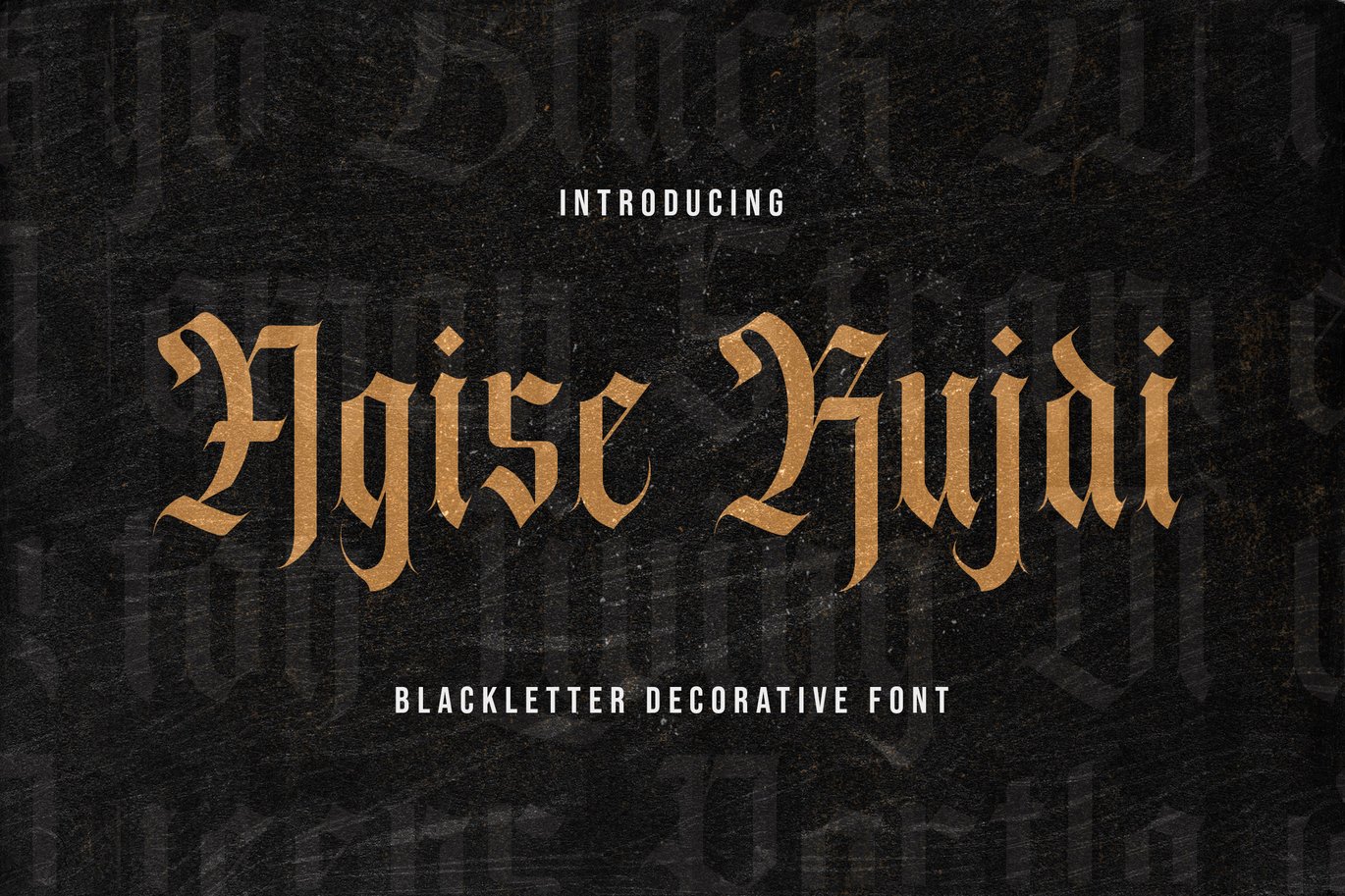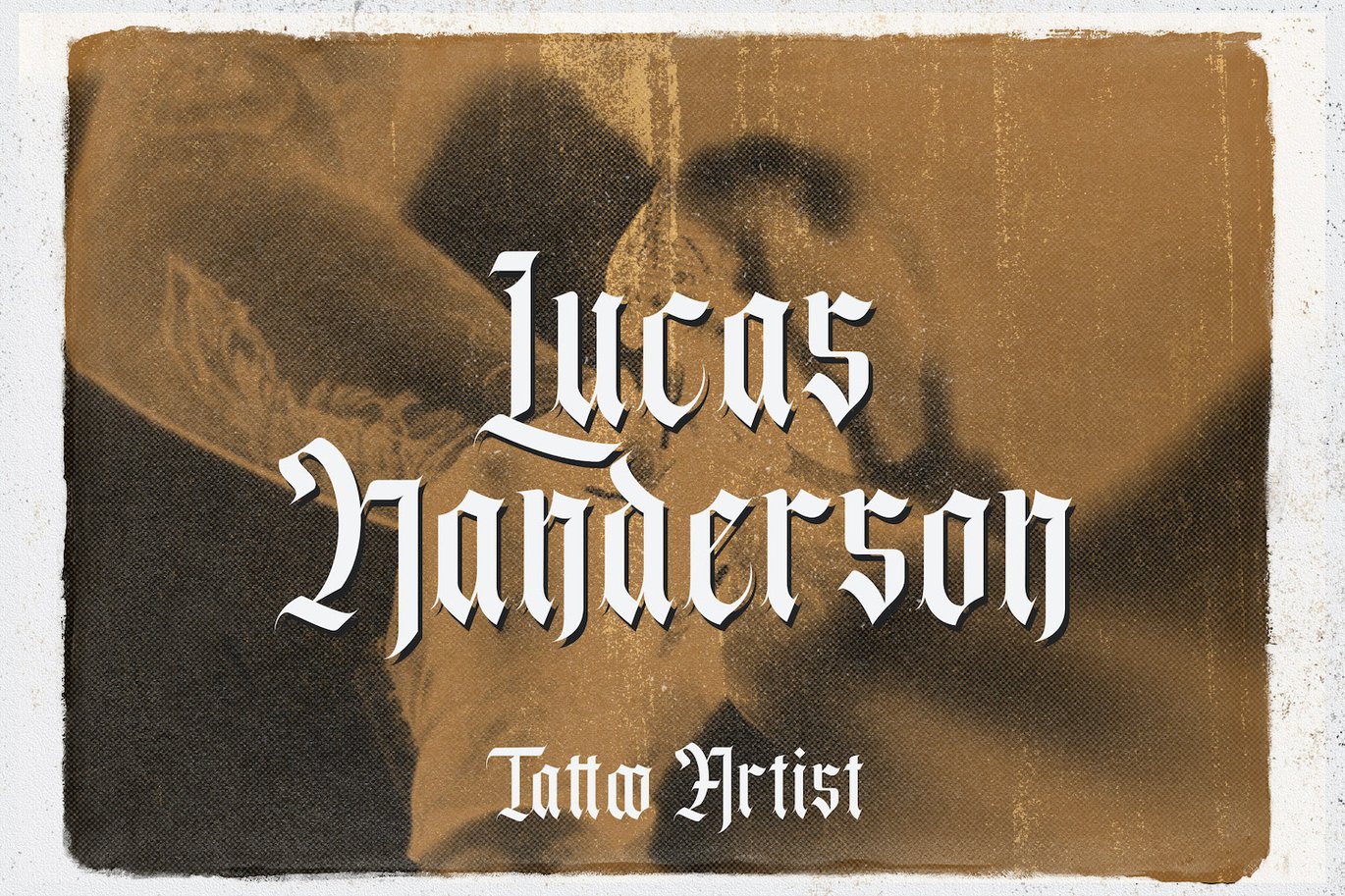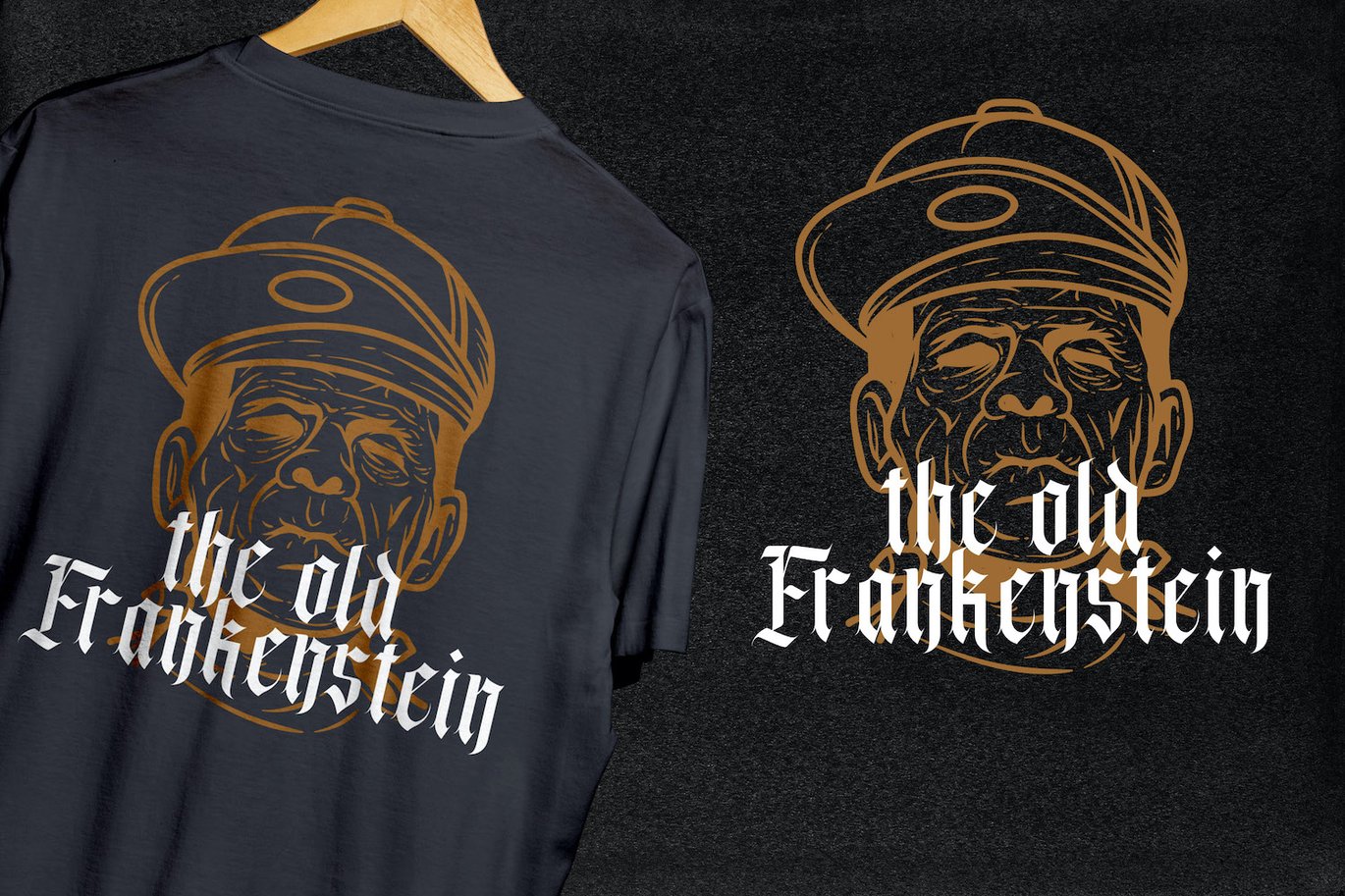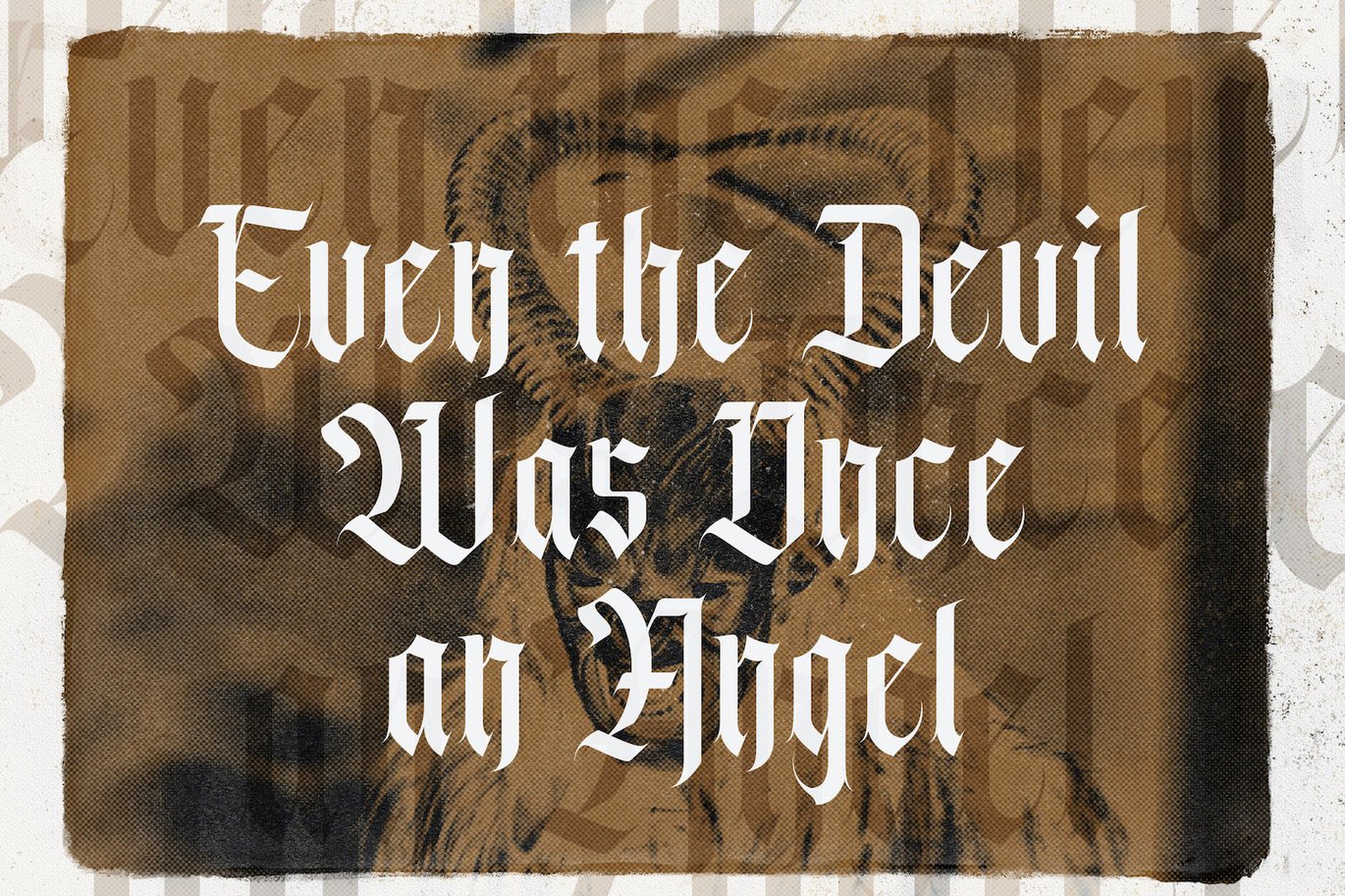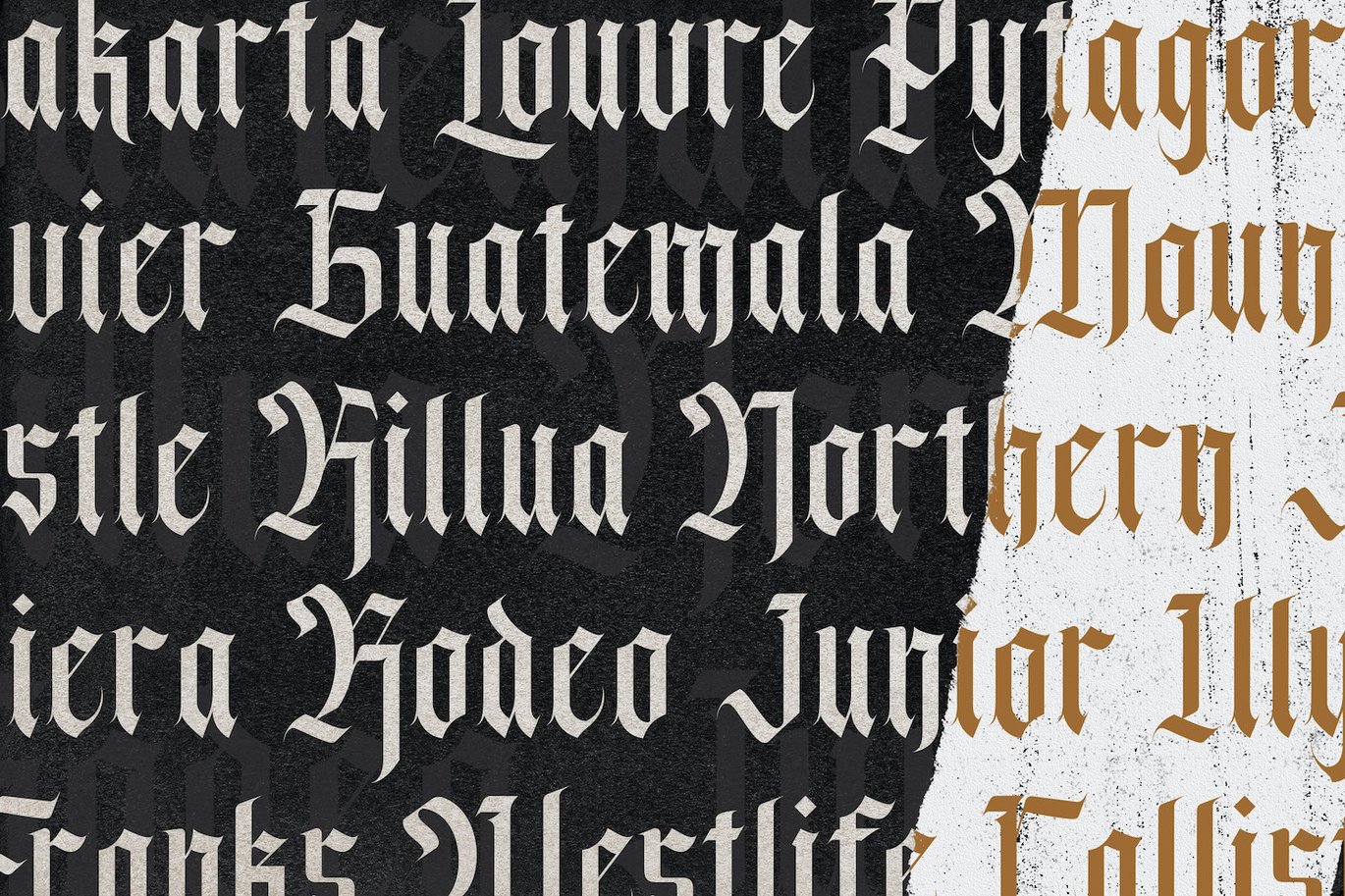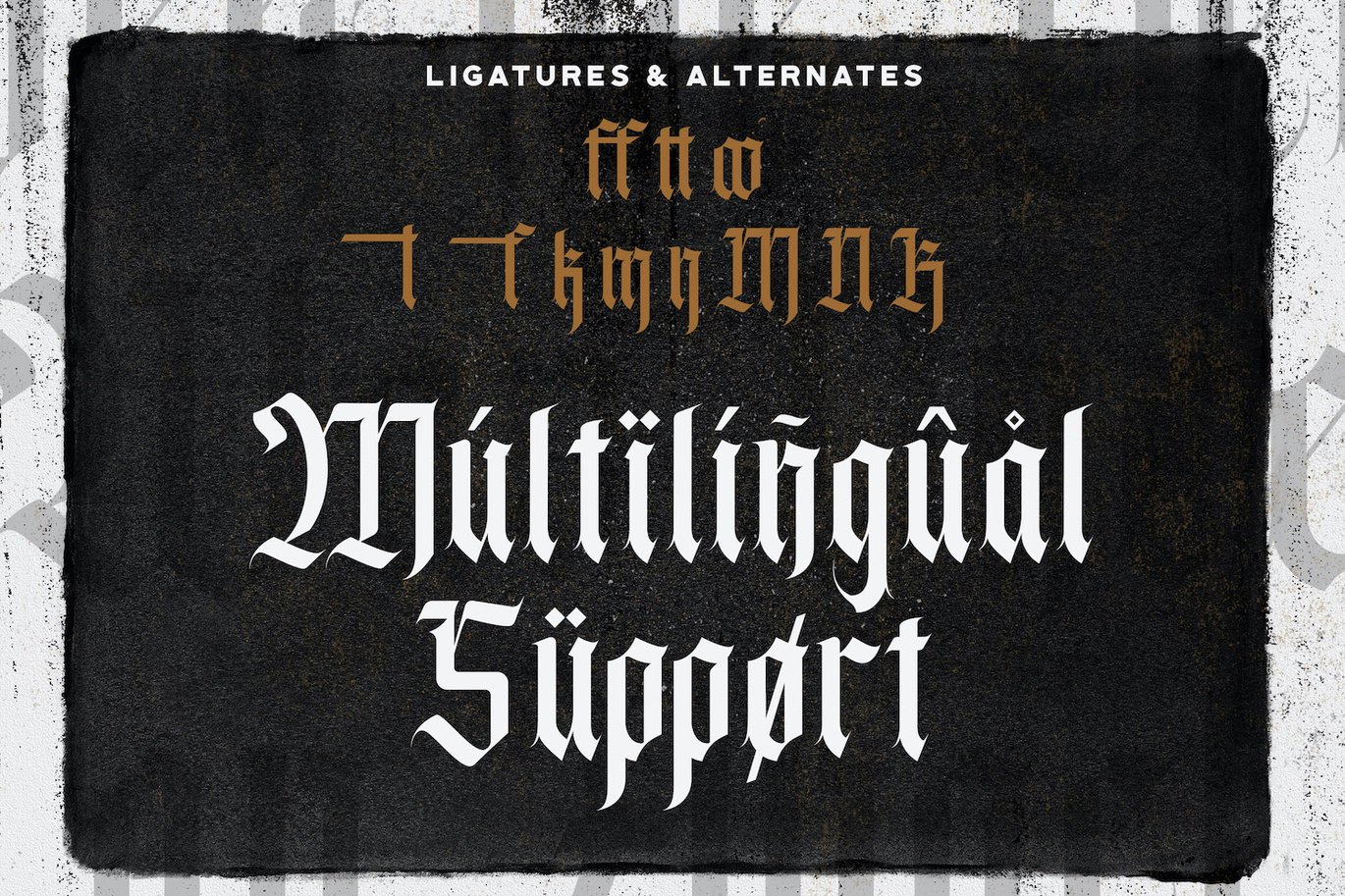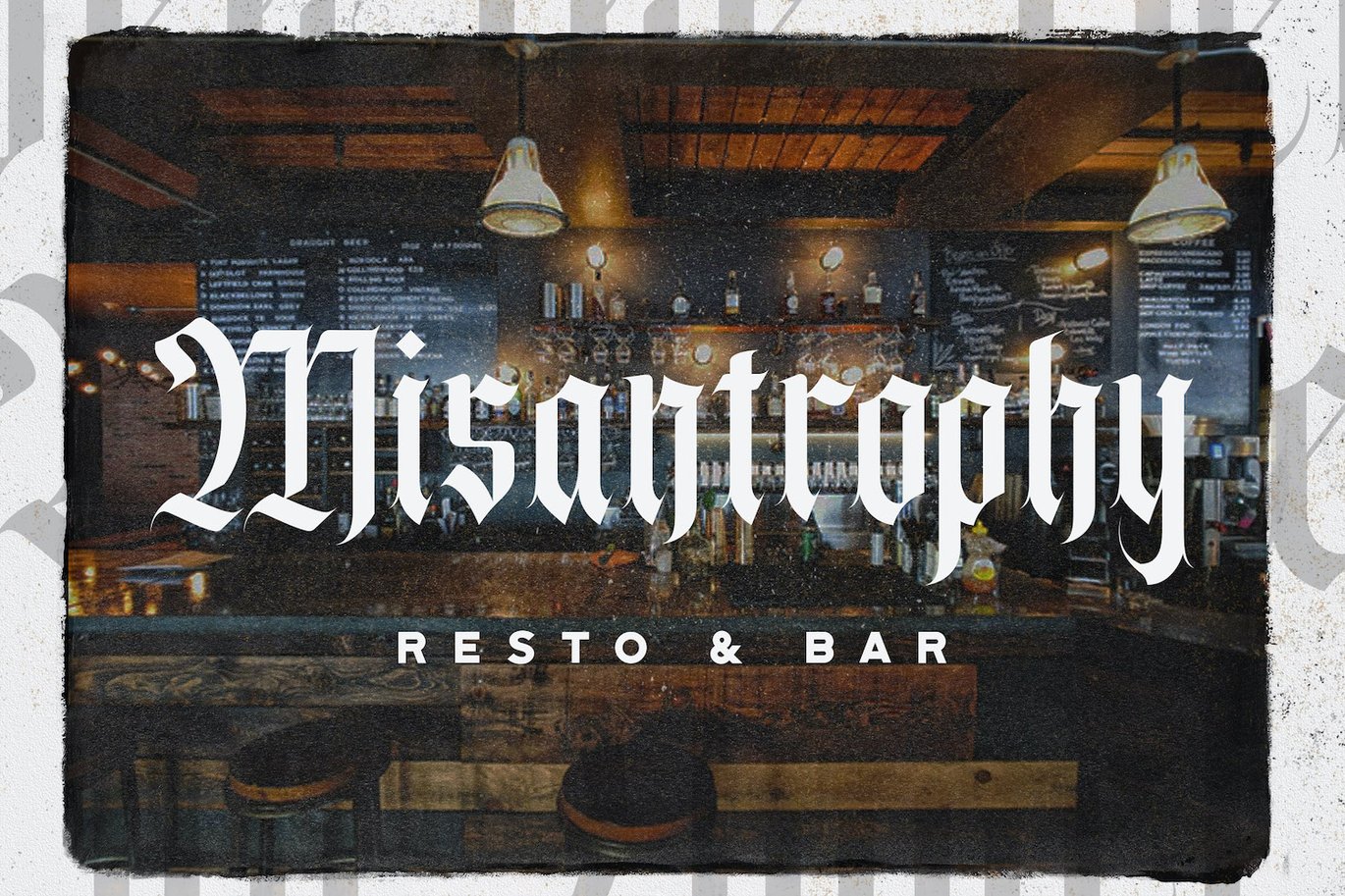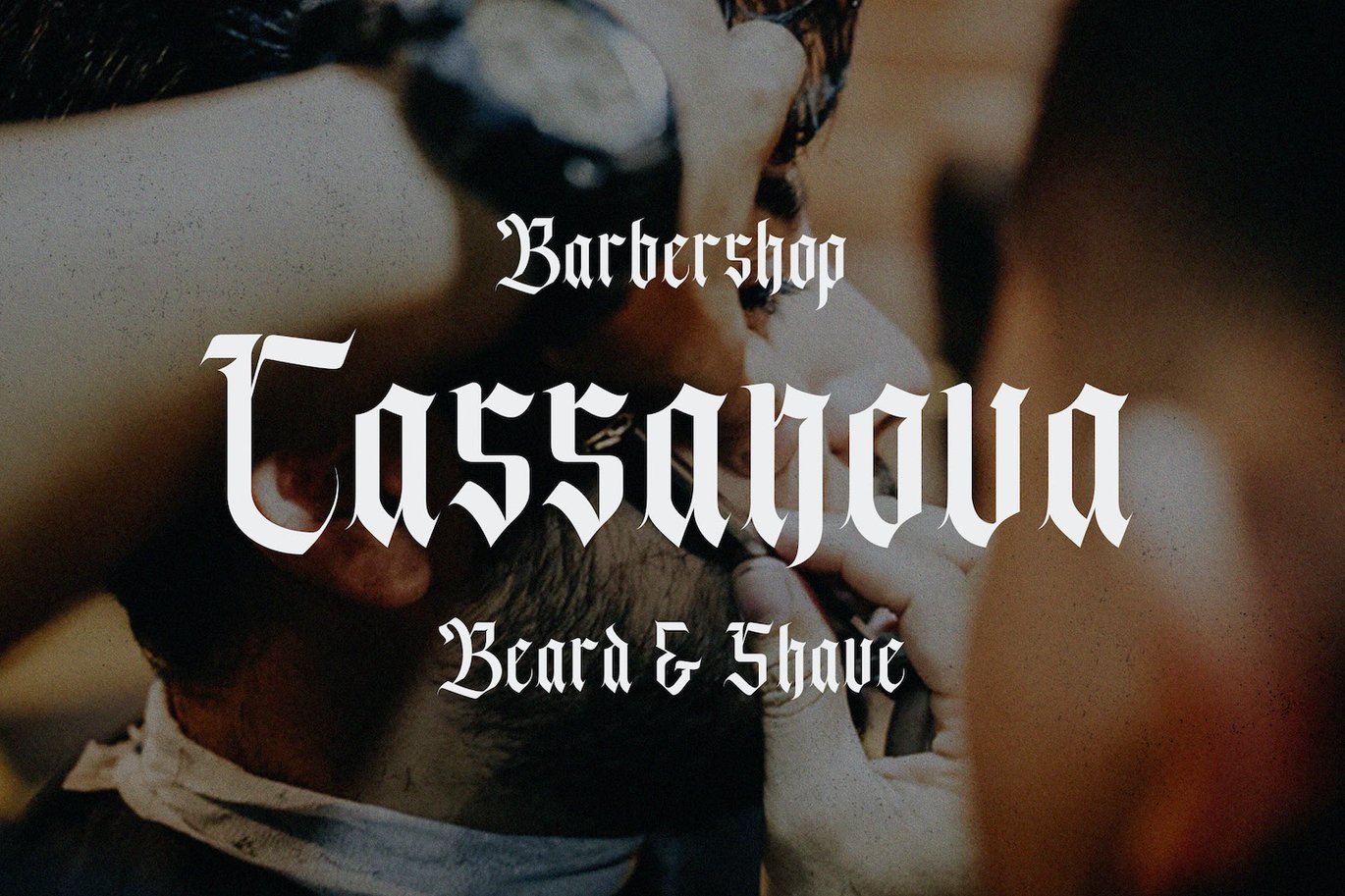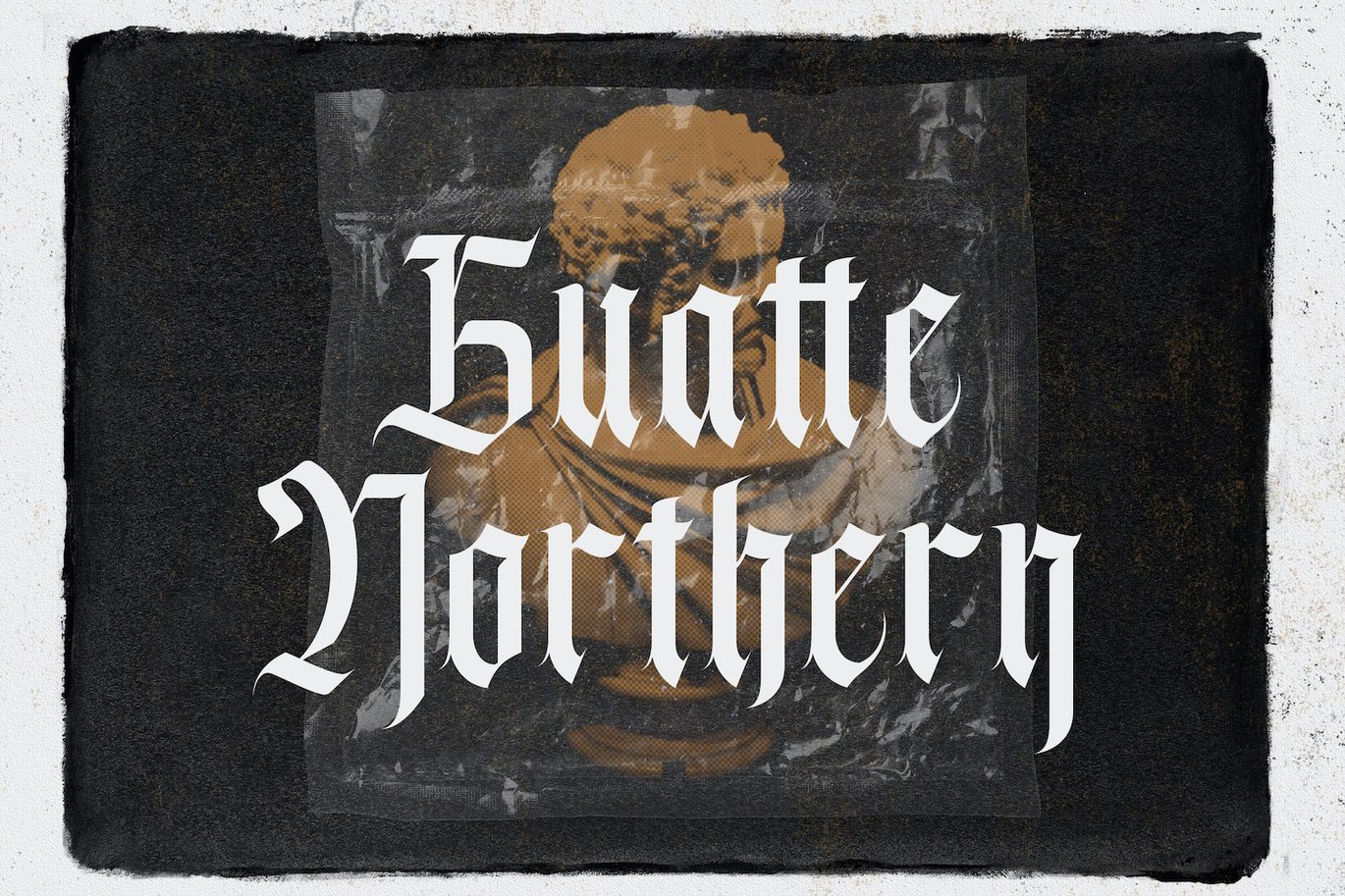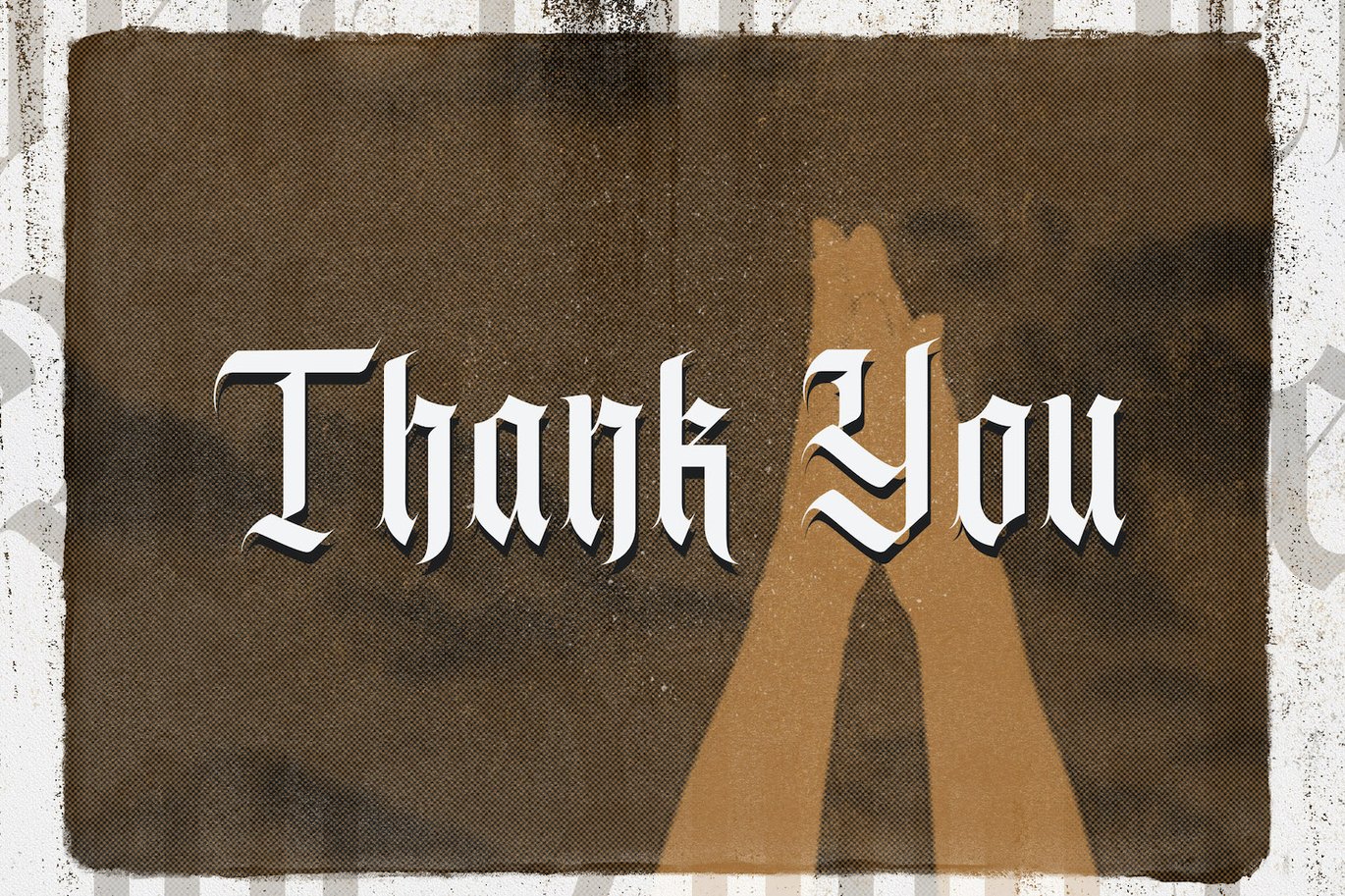
Agise Rujdi – Blackletter Font
Introducing Agise Rujdi – Blackletter Decorative Font
Agise Rujdi is a great blackletter font. It features a unique feel and look that makes it perfect for creating outstanding designs. Use Sadish for logos, branding, tattoo design, lettering and much more!